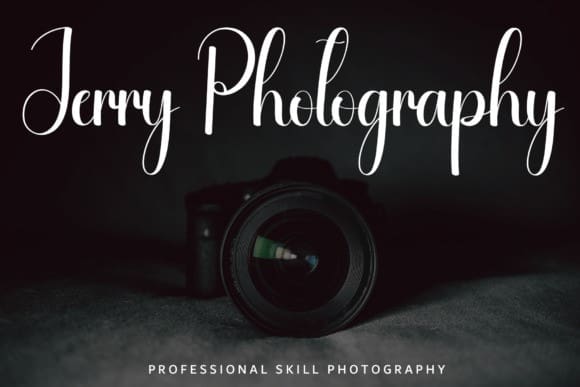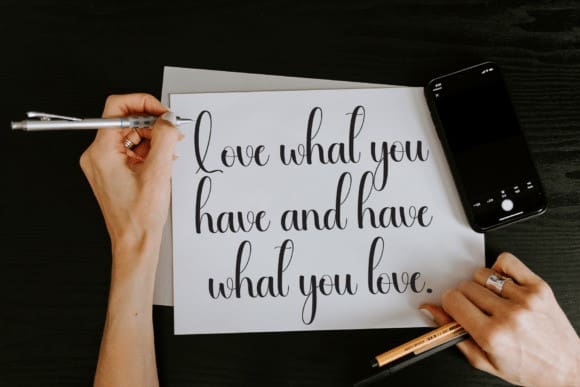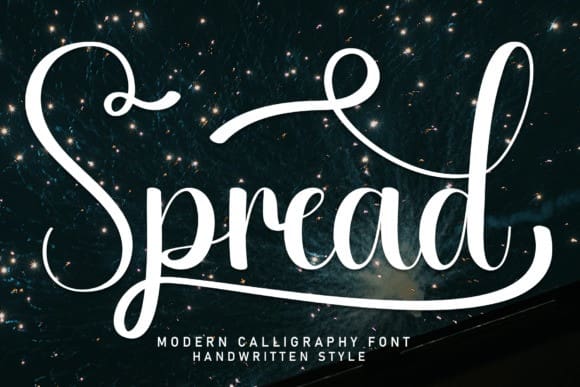
Spread Script Font
Spread Script Font – This is a sweet and friendly handwritten display font. Cute and fun, this font is ideal for writing wedding invitations, cards, or any other design that might need a fun touch!